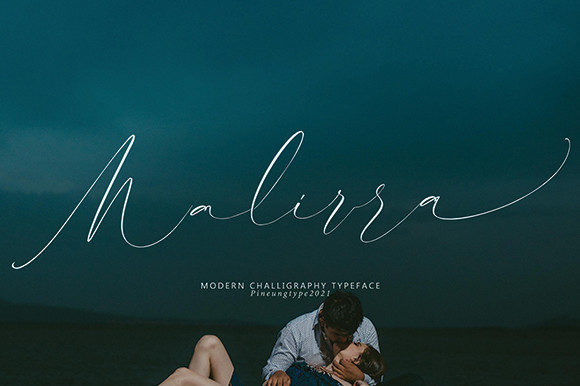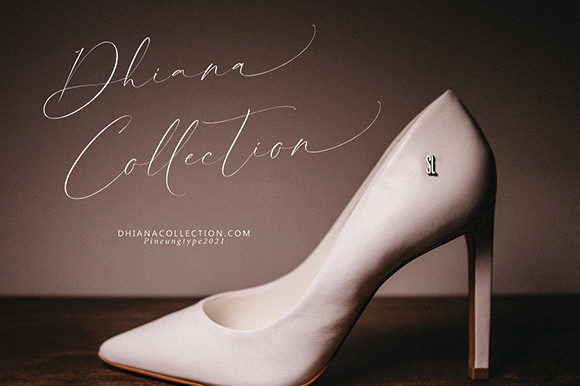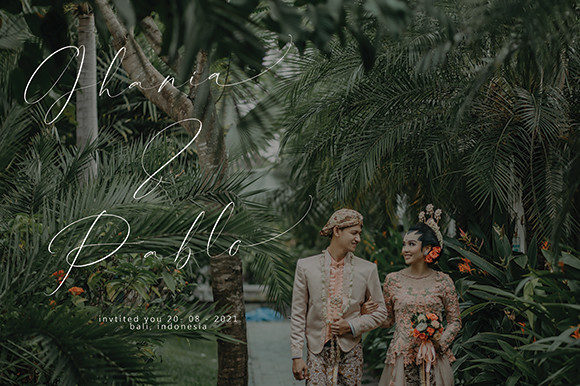
About Malirra Font
Malirra is a beautiful, thin lettered and elegant script font. It has beautiful and well balanced characters and as a result, it matches a wide pool of designs. This font is PUA encoded which means you can access all of the glyphs and swashes with ease!